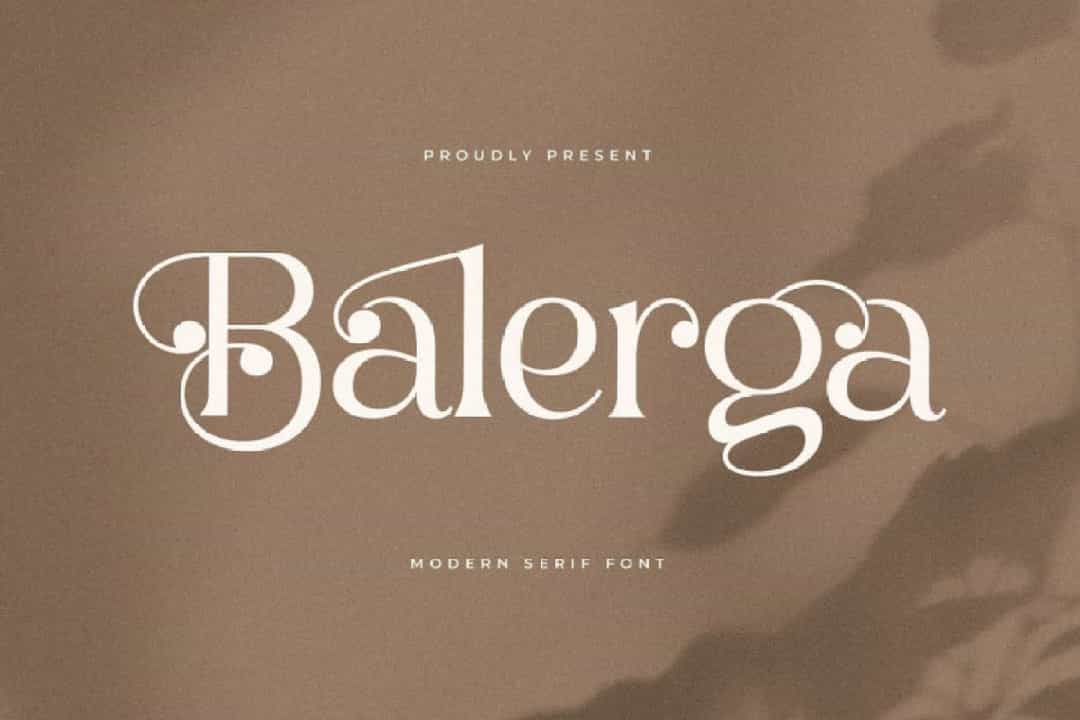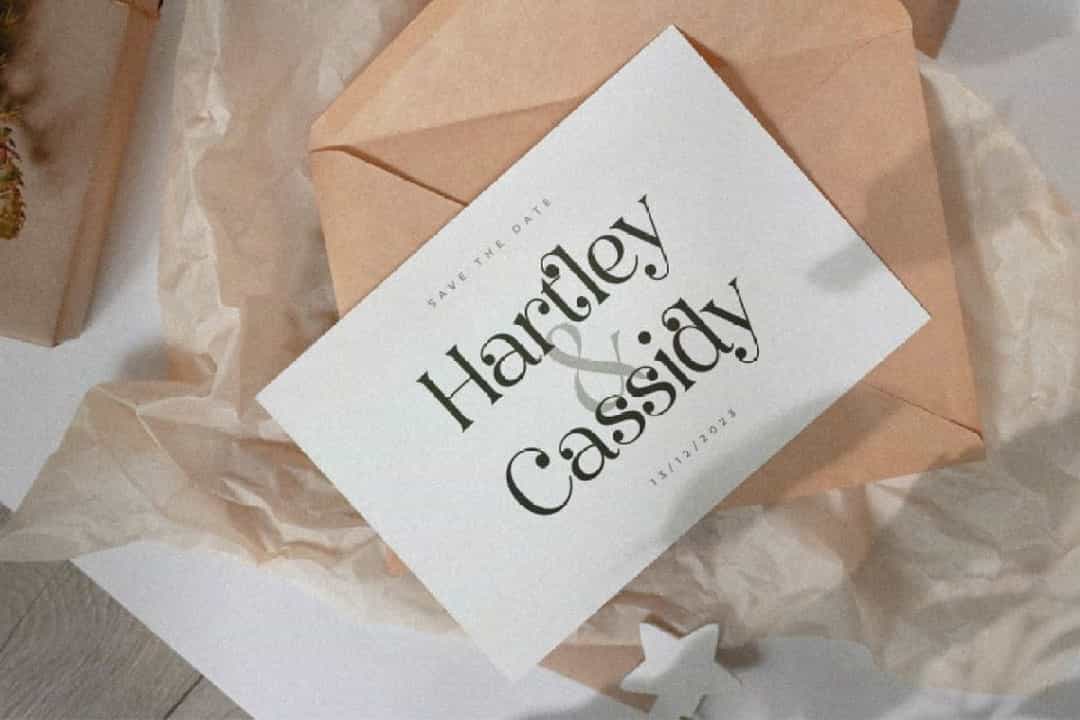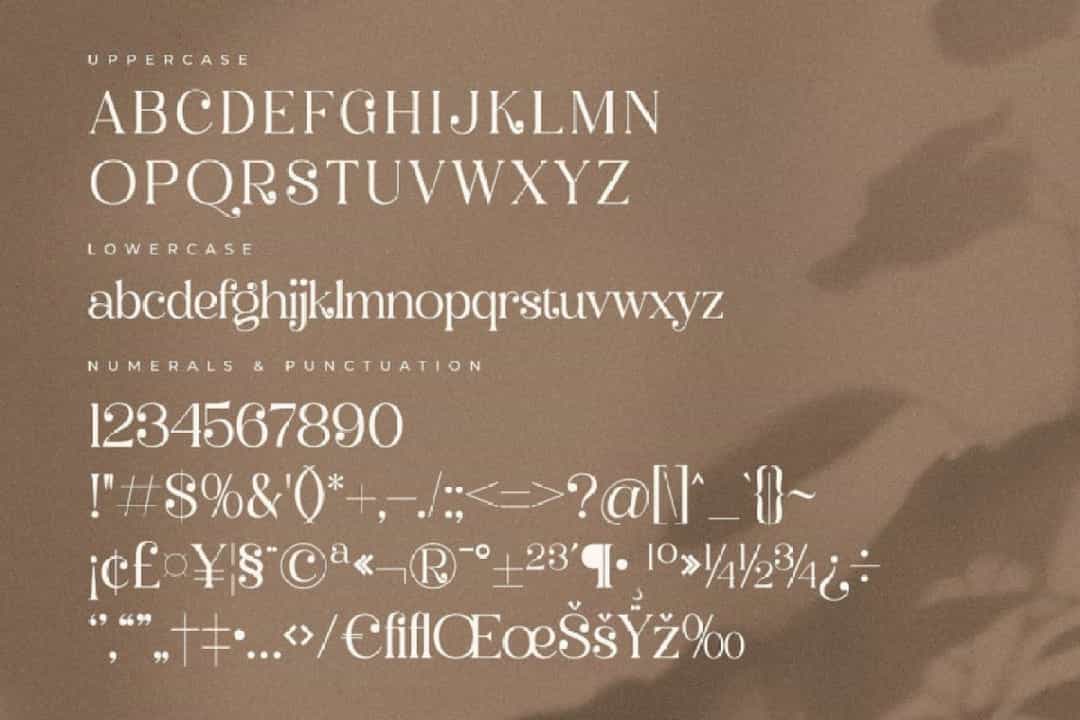
Balerga is an elegant and modern serif typeface that stands out with its distinct style and modern appearance. Ideal for creating classy logos, book or film styles, fashion label clothes, magazines letterings as well as quotes among many other applications,